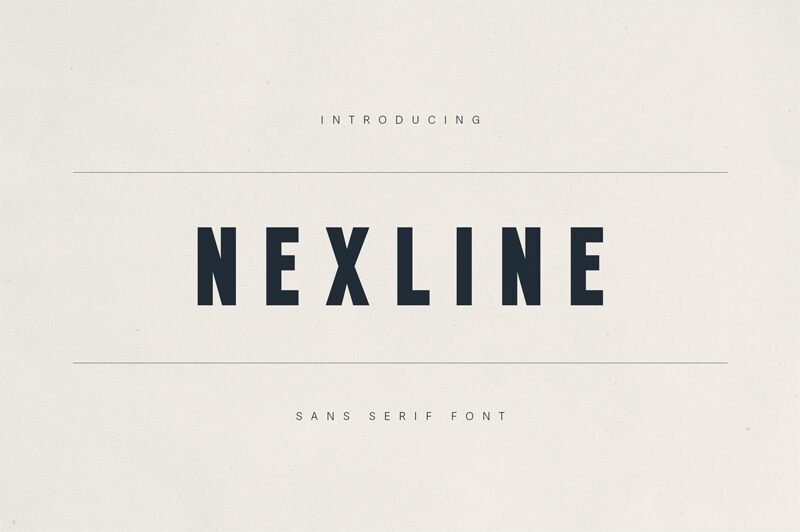
Nexline font by VPcreativeshop is a modern free sans serif font with a minimalist and structured design. Its contemporary style combines clean and professional elements to give off a versatile tone perfect for designs of various types and styles. Nexline is mainly characterized by its simple straight letters that reflect its great influence in giving your day-to-day projects a new outlook and perspective.